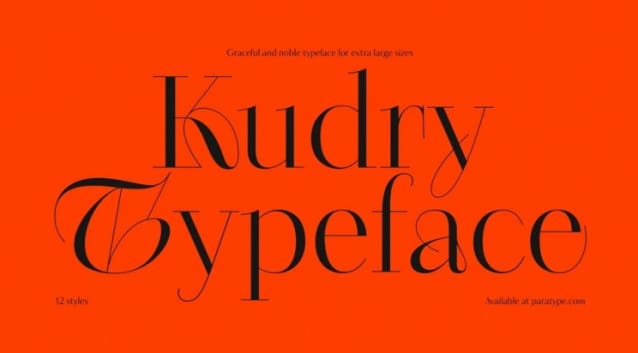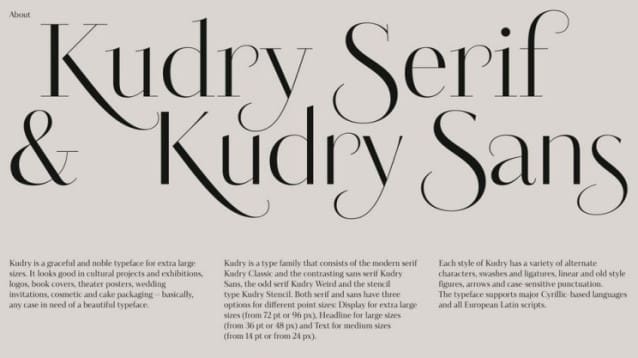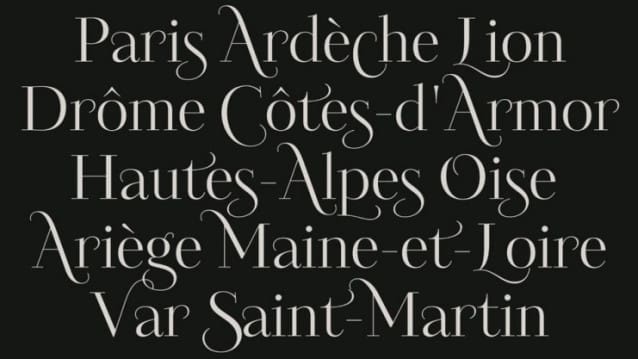
Kudry Font
Kudry Font is an elegant and noble font for use in extra-large sizes. It is suitable for cultural projects and exhibitions, logos, book covers, theater posters, wedding invitations, cosmetics packaging and cakes – in general, for any occasion where a beautiful font is needed.
Kudry is a font family that consists of the modern serif Kudry Classic and the contrasting sans serif Kudry Sans, the “weird” serif Kudry Weird and the stencil font Kudry Stencil.
The authors of the font are Isabella Chaeva, Alexandra Korolkova and Nikolai Nedashkovsky. The design of the Kudry signs, details of the letters and alternatives are an original modern solution based on the proportions and skeleton of the antique by N. N. Kudryashev.